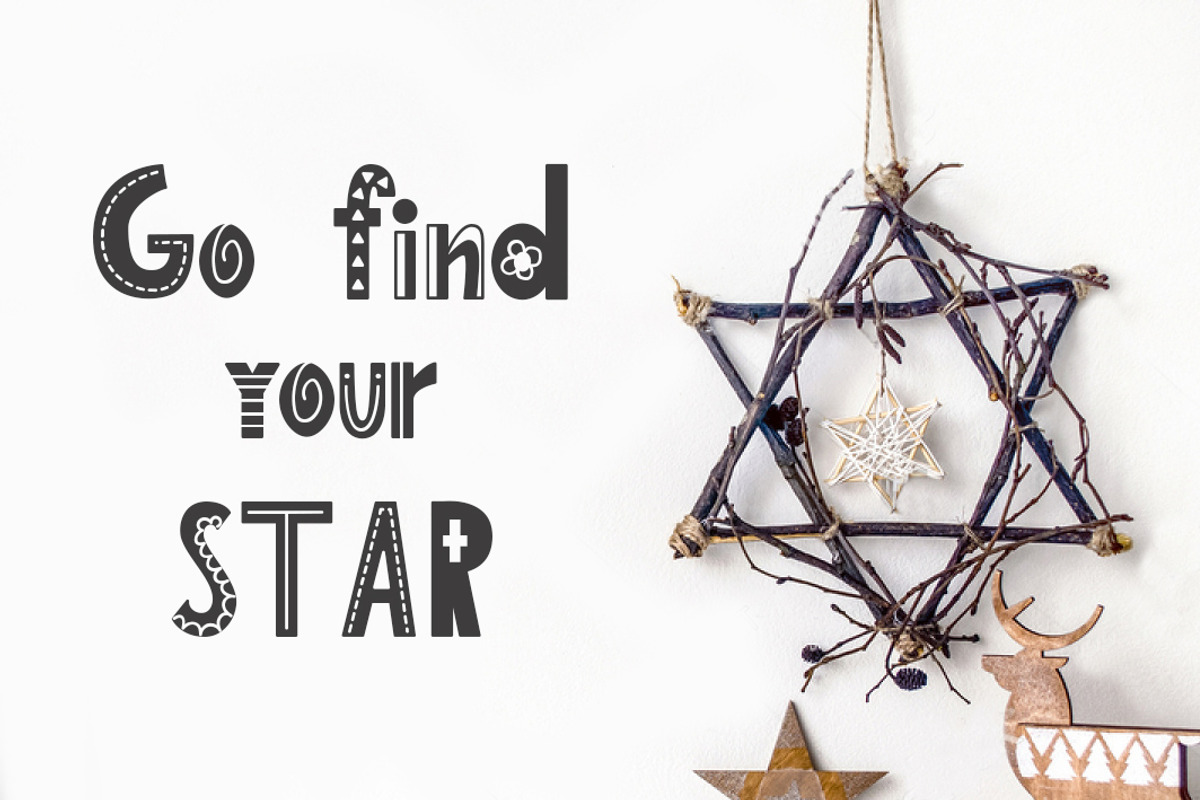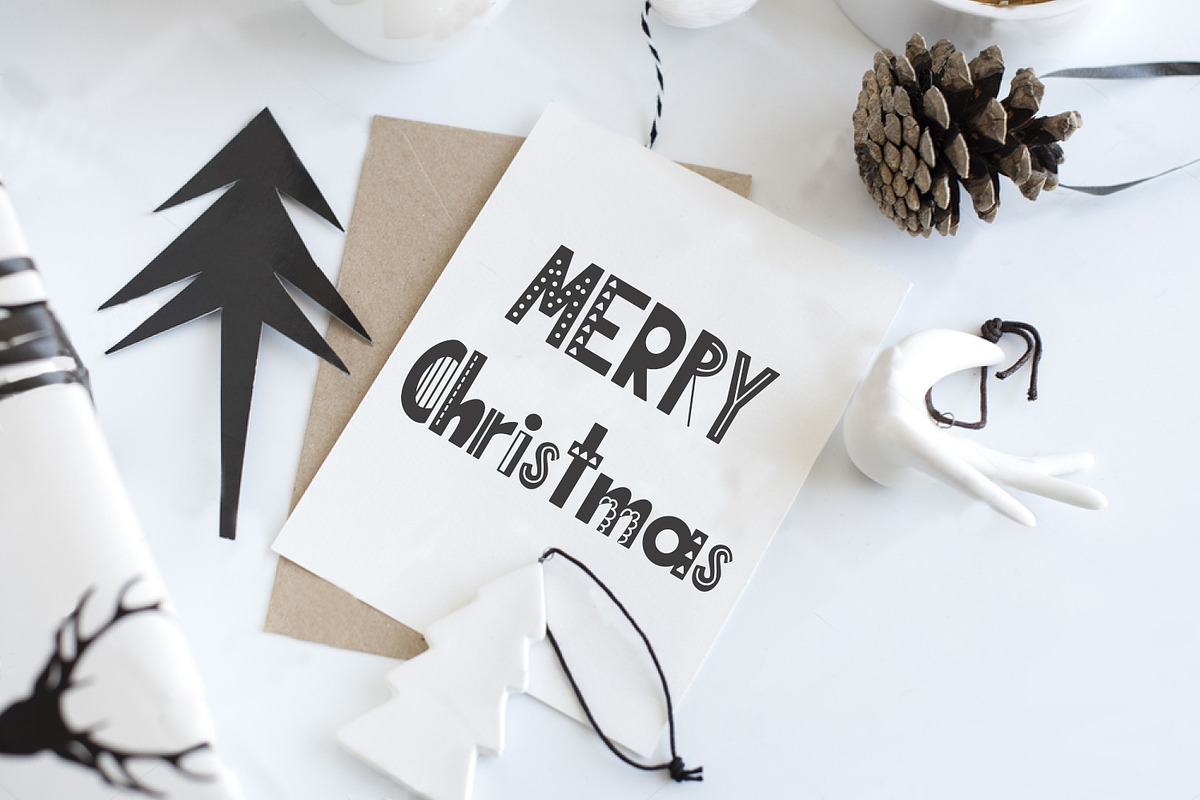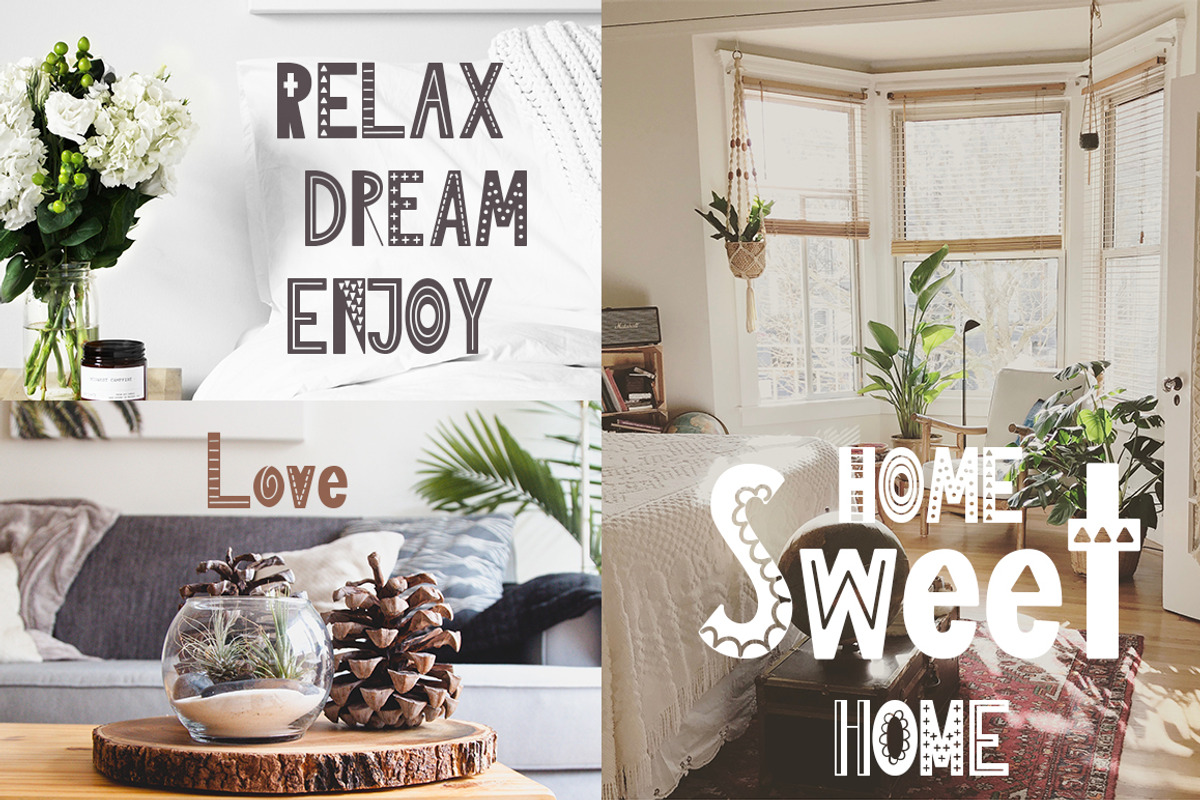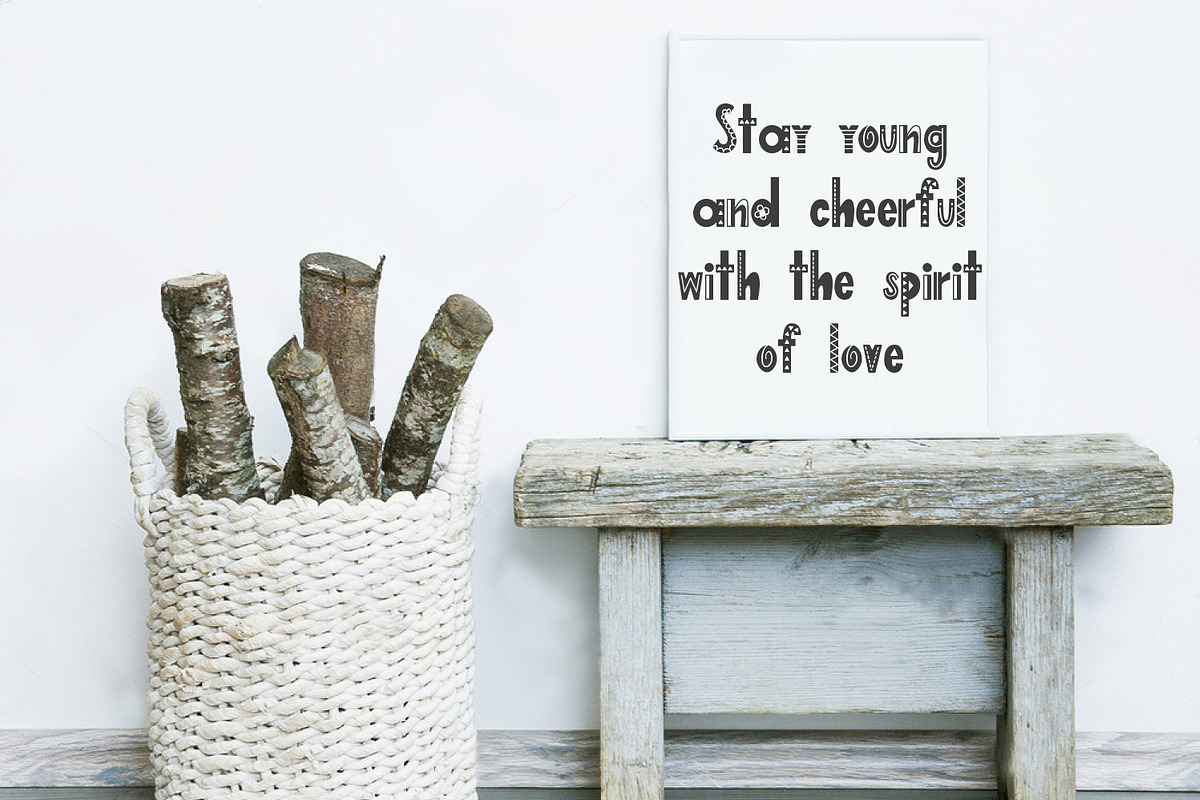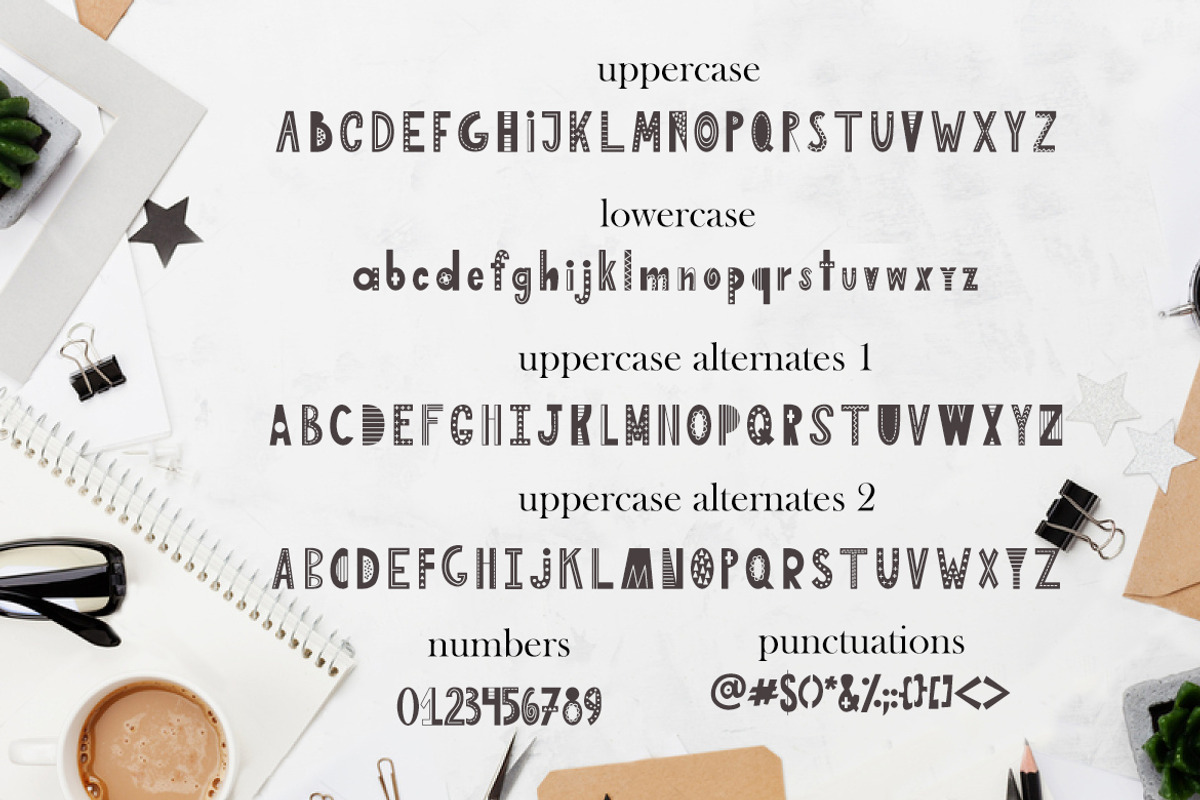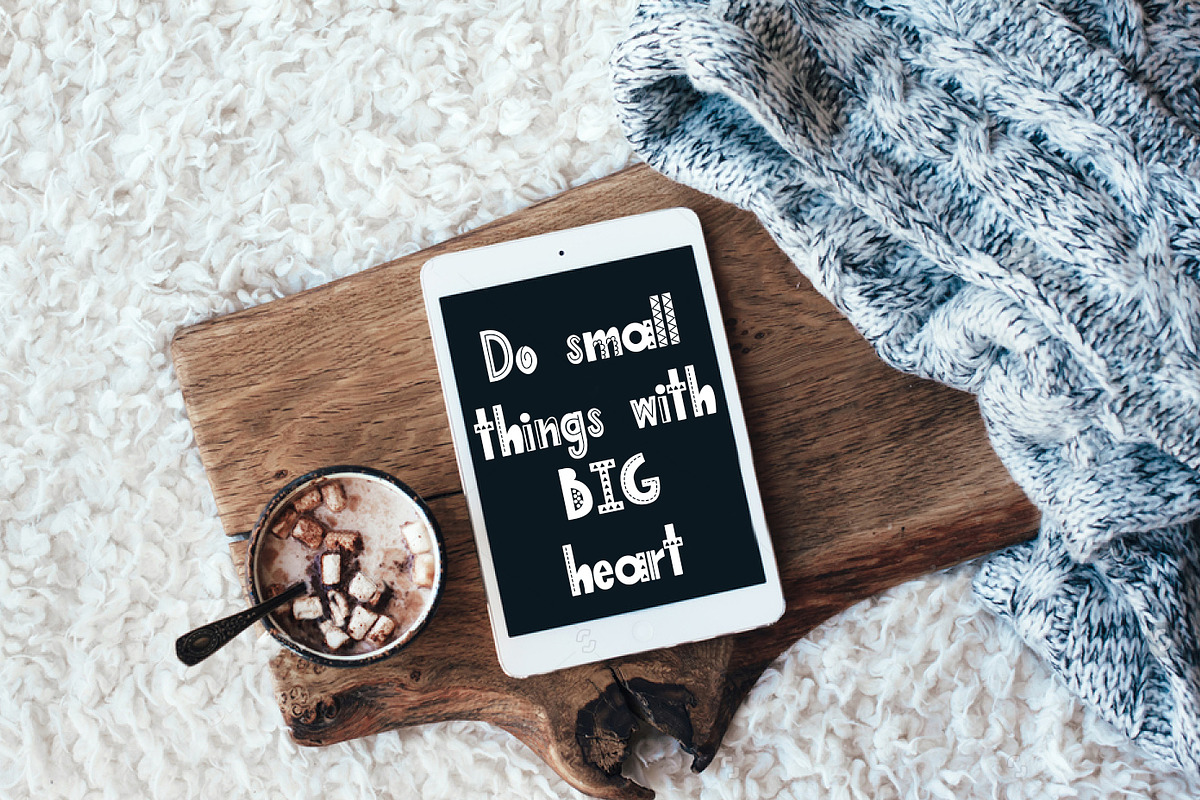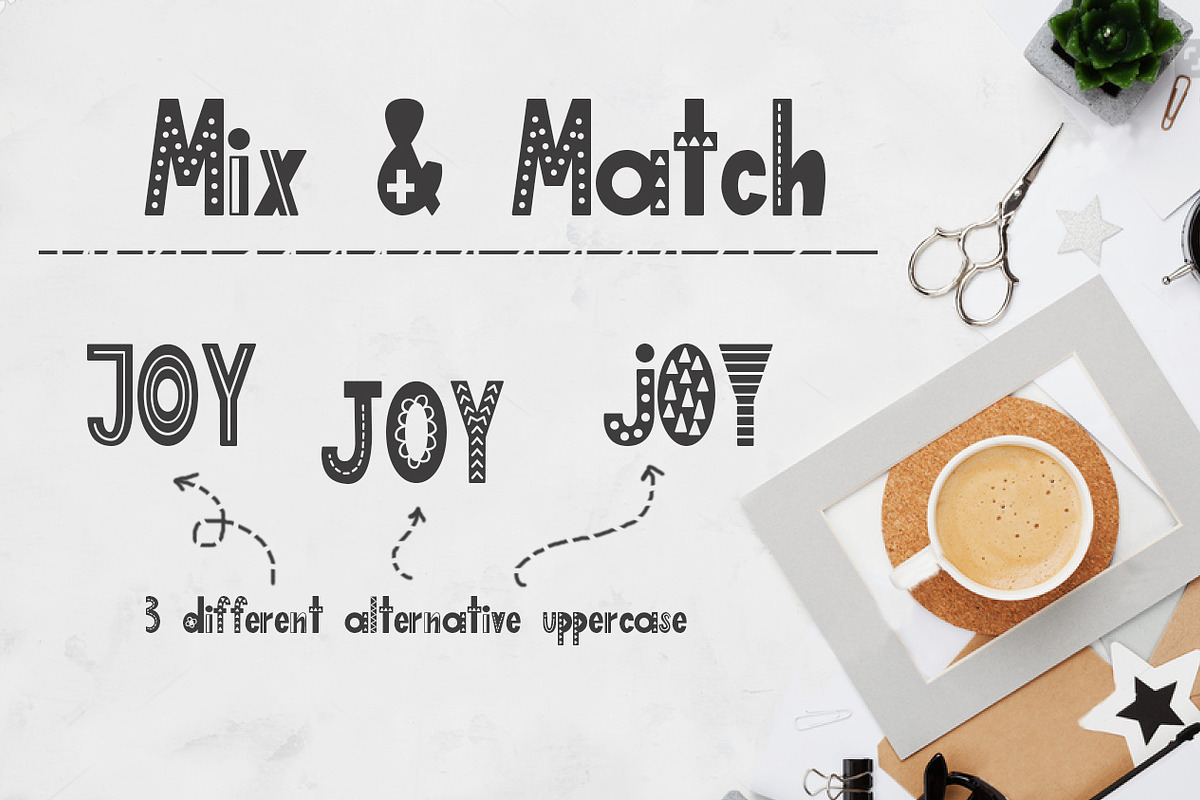
Dreamy Fjord-Scandinavian font
I present to you a Deamy Fjord - Scandinavian font.
You can use this font for watermark on photography, signature or signature logo design, quotes, album cover, business card, and many other design project. Perfect for greetings, branding, prints, invitations, and crafting, print, t-shirt design, to personalised logos, handwritten quotes and so much more!
Simply Deamy Fjord makes custom lettering a dream thanks to all the little extra decorative options you can include for a pretty and unique customisation.
In this font it's very easy to get to ligatures, you no longer need to get to the glyph panel. Type your text and start playing with alternates. All you need to do is just type the number after the letter: a1, a2.
This method is very fast and makes life of designers more comfortable!
Why Dreamy Fjord-Scandinavian font is worth a look
Dreamy Fjord-Scandinavian font by Astartedesign fits naturally into Branding, posters, packaging, typography.